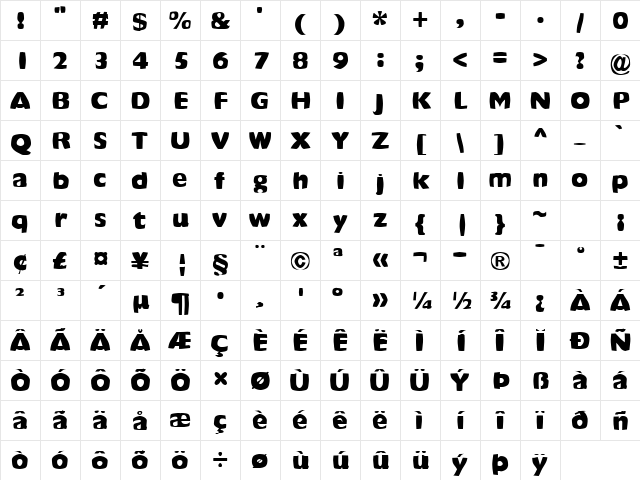
Complete FZ WARPED 42 Normal glyph index. Displaying only characters natively supported by FZ WARPED 42 Normal font.
FZ WARPED 42 is a composed and adaptable typeface that performs quietly and consistently across a wide range of design contexts.